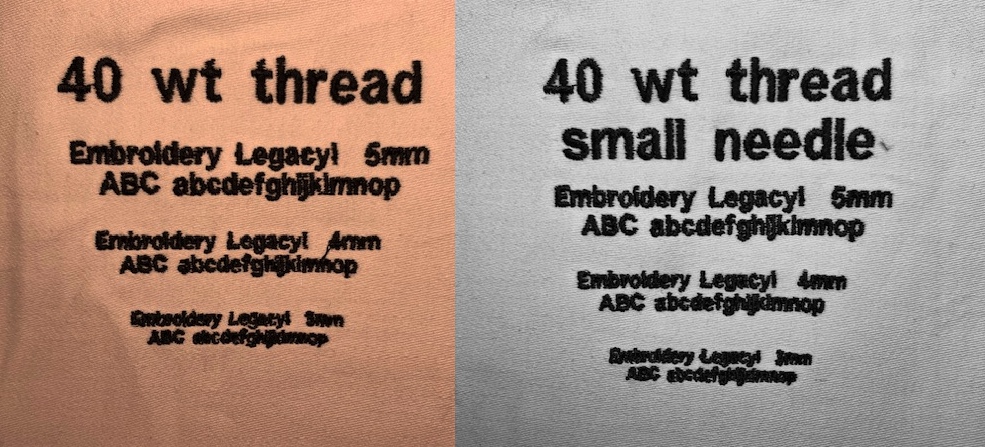
When you think you have gotten the hang of good solid block and cursive letter at a “normal” size, you find out there is a whole tiny world waiting to trip you up. But don’t worry; we are here to help you get the best results when embroidering small letters.
What Are Tiny Embroidery Fonts, And Why Can They Be Difficult?
What are tiny fonts?
They are just how they sound; they are small. There are a handful of smaller fonts available for embroidery.
What are they used for?
They can be used in many ways, but the most common are logos or patches.
What factors go into deciding to use them?
You must consider the material used, the font, how many letters, and what size.
Customers or friends want what they see on their printed material. As embroiderers, we must gently educate them about which fonts to choose and which will not work.
Complications With Small Embroidery Fonts
You guessed it. When embroidering such tiny fonts, you may encounter some problems.
- Birds nests: can be created when there are so many stitches in one place that the needle has a hard time returning to its upright position and the thread is trapped.
- Hard to read: the more stitches you have, the smaller they get, resulting in difficulty in reading them. Factor in the type of fabric you use. When using cotton and other fabrics which can shrink, the problem becomes worse.
- Holes: great on a golf course but not on your performance polo. Any time you have a lot of small stitches, say, in a circle, you run the risk of cutting a hole in your fabric.
5 Things to Remember When Using Tiny Embroidery Fonts
We talked about the bad news. Is there any good news? There is! You’ll be up and stitching in no time by making smart choices in your font, fabric, and stabilizer! Let’s discuss the different factors that can impact your stitch-out.
1. Fabric Types For Tiny Embroidery Fonts
Pique knits are thicker 3D knit that is breathable and used for many sport and performance shirts. Often called “Honeycomb” weaves, they are sometimes difficult to embroider because the stitches can sink into the fabric.
Soft and silky fabrics can also be tricky as they don’t have a lot of stability, and textured fabrics distort the letters. It is also best to avoid sheer fabrics, such as anything netting.
Remember, the more stable the fabric is, the easier it is to embroider—Woven materials that are well-stabilized work best for tiny fonts.
2. Tiny Embroidery Font Stabilizer & Underlay
When using small fonts, they must have underlay.
Here are a few things to keep in mind with underlay regarding small fonts:
- A center-run underlay is best for tiny fonts and aids them in sitting on top of the fabric. You can use a zigzag or edge run with larger and thicker fonts.
- Knockdown stitches are a type of added underlay (do not get rid of your fabric stabilizer) which looks like a tatami stitch and will knock down nap and fluff of “fun” fabrics and towels.
- Never use edge run on small letters. There is not enough room for more.
When it comes to using a stabilizer, more stabilizer means better stitching. We would suggest using at least two layers.
3. Considerations About Letter Style
As a general rule when choosing or preparing artwork for embroidery digitizing; less detail = better result, especially when creating small designs.
That said, using swirl or bold fonts is always more fun, but when choosing small letter fonts, the very basic fonts turn out better! In this case, less is more.
You want to choose fonts with no serif or fancy features. Avoid serifs (little tails on older lettering styles), swirls, and curlicues.
The smallest text legibly to be used is 4mm, but some 3mm are possible. The smaller the size, the harder it will be to read clearly.
4. Needle & Thread Suggestions For Small Embroidery Fonts
When embroidering smaller fonts, we suggest trying a smaller needle size. Smaller needles leave smaller holes after penetrating the fabric.
Depending the material you embroider on will also influence which needle you should use. For woven materials, use sharp point needles as they pierce the fibers; knit fabrics, use ballpoint needles that go between the fibers and do not cut them.
The embroidery thread size you use will also affect your results. 60-wt will come out nicer as you go smaller. It’s always best to try a sample before embroidering on your final garment to see how it works.
Below you will find some comparisons of 40 and 60-wt thread with 75/11 or 65/9 needles.
We used a standard block font and did not alter it in any way to show what happens. These were done on cotton woven twill fabric with a medium tear-away stabilizer.
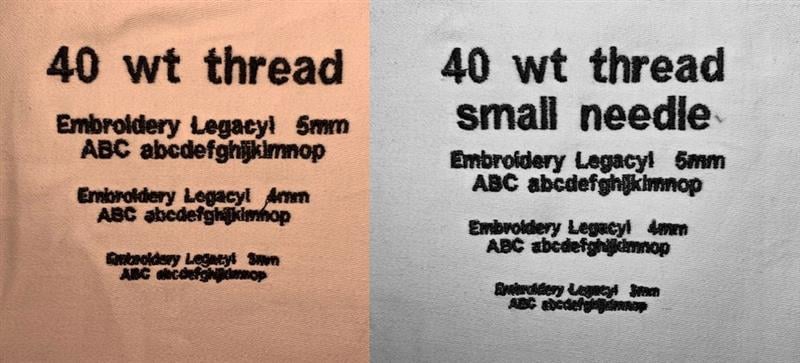
You can see a difference between the regular 40-wt thread using a thinner needle.
Next, let’s see what happens with a thinner thread!
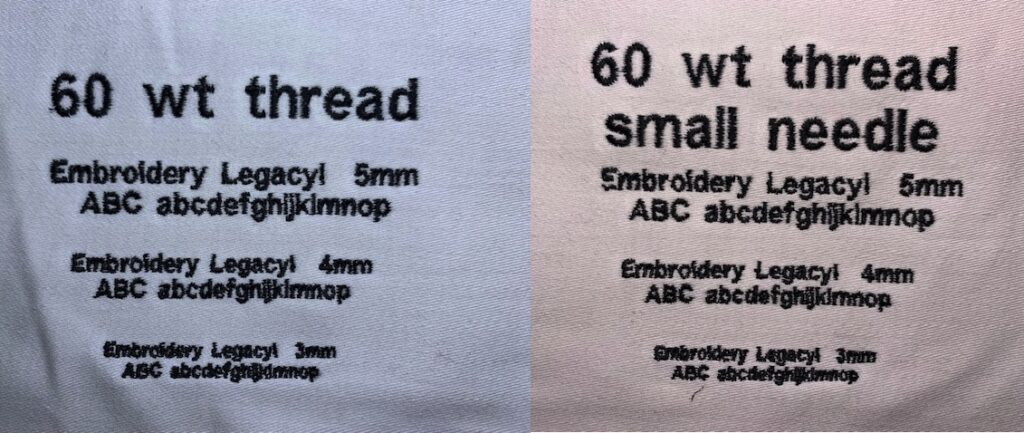
As you can see, there is a definite difference between the 40-wt and 60-wt.
- Choose the right fabric. Woven fabrics work best, but some fabrics will not work with small fonts (such as fleece, fluffy fabrics, knits, and sheer fabrics like netting and satin).
- The smaller the needle and the smaller the thread, the more clear your results.
- Choose the right font, don’t get crazy if you want the lettering to be legible.
Always do test stitch-outs and be patient until you get the result you want.